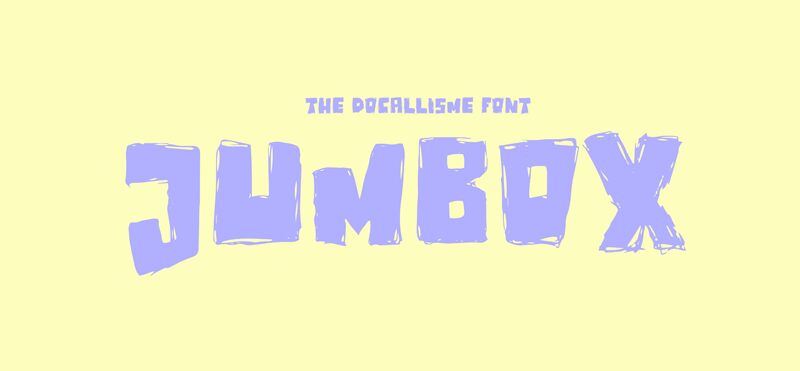
JUMBOX
Jumbox font by The Docallisme - Amry Al Mursalaat is a free bold hand-painted grunge display font. Torn-brush edges, chunky silhouettes, and uneven counters feel like wet ink dragged across rough paper. The letters lean and swell slightly, building a loud, high-impact rhythm with a raw, human pulse.
Using Jumbox, headlines command space on gig posters, album covers, streetwear logos, skate graphics, festival flyers, and horror titles. This free font thrives at big sizes and with gritty color; set it large with modest tracking so the texture breathes. Pair with a clean condensed sans for captions.